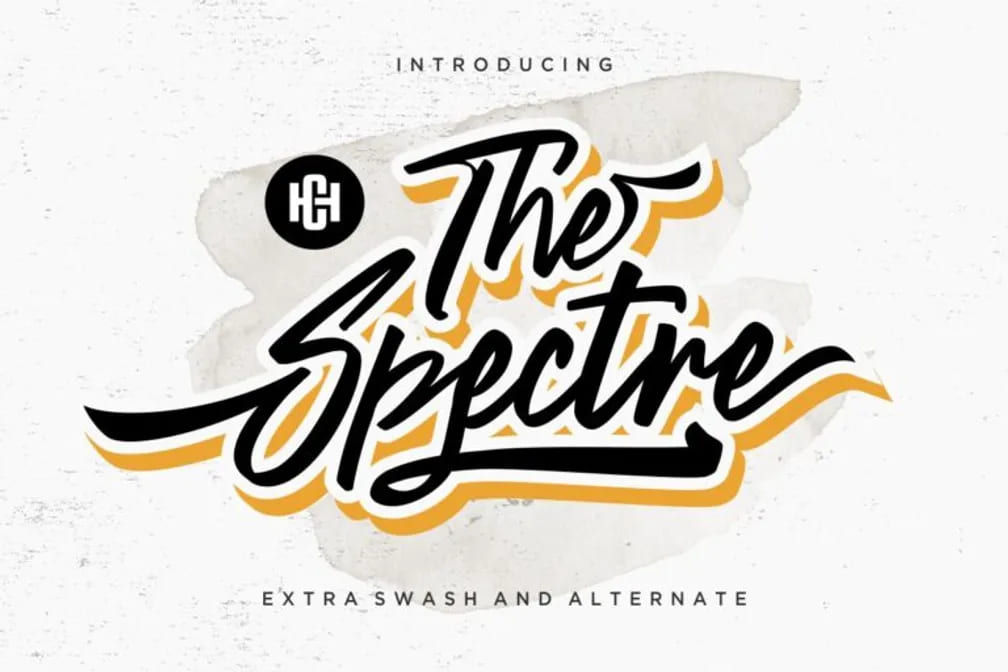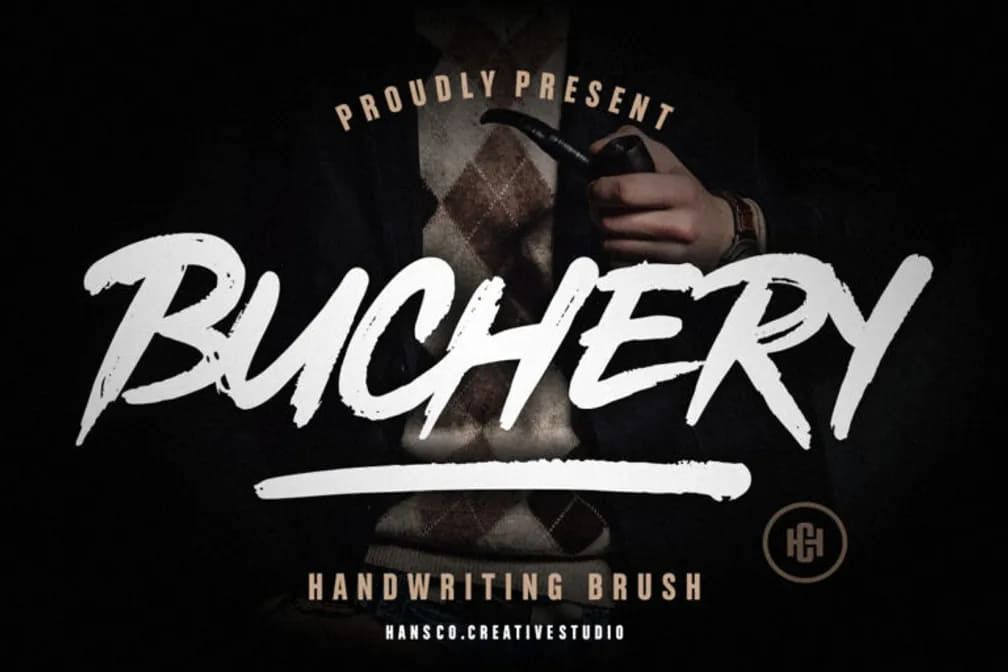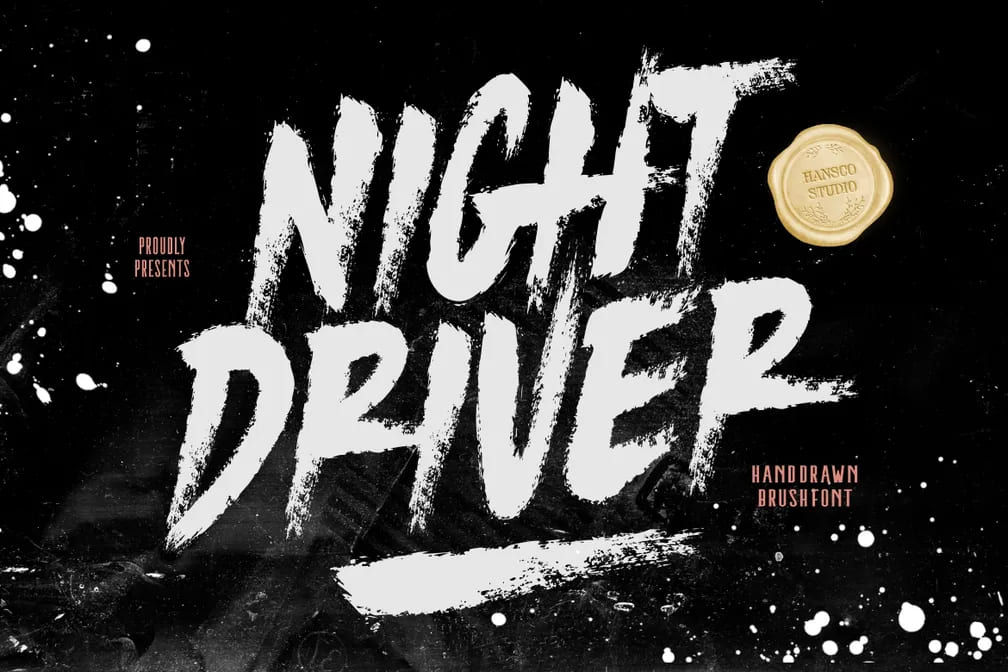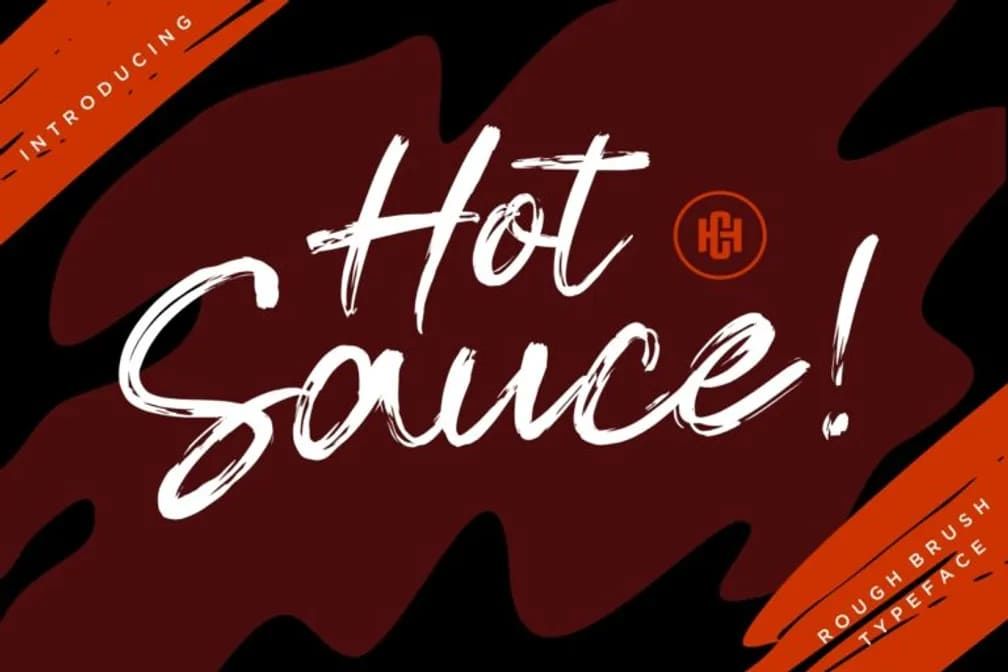
Brush Script Fonts: 32 Picks from Rough Strokes to Refined Style
In design and branding, legibility and aesthetics are essential, but they’re not always enough to stand out. To break through a crowded market, you need typefaces with real personality. Brush script fonts, with their expressive and handcrafted style, are a powerful way to add character and make your visuals more distinctive.
Not sure where to start? Explore the list below to find styles that match your creative direction.
Key Takeaways:
• Brush script fonts bring a more human, expressive feel that helps designs stand out in a crowded digital landscape.
• Their wide range of styles, from rough and energetic to smooth and elegant, makes them adaptable for many types of branding and creative projects.
• Choosing the right style can strongly influence how a brand is perceived and make the overall design memorable.
Why Use Brush Script Fonts in Design
You might wonder, what is brush script font and why use it in design? In an era shaped by AI-generated content, audiences are increasingly drawn to visuals that feel more human and authentic. Reports from Bigeye Agency show that 73% of consumers are less likely to trust AI-generated content, highlighting a growing preference for human-centered design.
Brush script fonts respond to this shift naturally. Their imperfect, hand-drawn strokes bring personality and a sense of originality that polished digital type often lacks. At the same time, they are highly versatile, ranging from rough, energetic styles suited for bold design to seamless, elegant scripts ideal for refined or feminine visuals.
32 Brush Script Fonts That Instantly Elevate Your Design
Here are the carefully selected brush script fonts designed to elevate your visuals with style and character.
1. The Spectre
Spectre delivers an urban street-style feel with sleek, curving strokes. Additionally, its thin, wavy lines add movement and make it a great pick for venturesome streetwear designs.
2. Hot Sauce
Hot Sauce is a script font brush with a dry, textured finish. Despite its unfinished appearance, the strokes flow naturally, creating an energetic feel. This font works well for designs that aim to convey high energy, such as workout brands or street food posters.
3. Holingston
If you are looking for a font that feels masculine, neat, and stylish, Holingston is a strong choice. It features steady handwriting with a gritty, faded effect, giving it a semiformal and mysterious appeal.
4. Love Sparks
Among many brush script fonts, Love Sparks stands out for kid-friendly designs. It features heavyweight lines with a natural flow, creating a cheerful feel while maintaining good legibility.
5. Gopetter
Gopetter features clean, glossy strokes that create an elegant and refined look. It is a great choice for brands that want to appear casual while still maintaining a professional tone.
6. Santoriu
If you are wondering what does brush script font look like in a Japanese-inspired style, Santoriu is worth exploring. Its kanji-like letterforms help create an authentic feel, especially for Japanese-themed branding.
7. Wild Wolf
Wild Wolf delivers an adventurous feel. Its pronounced strokes create a sense of dynamic movement.
8. Bastian Sidney
Bastian Sidney brings a masculine touch with its raw yet stylish strokes. It is well-suited for gentleman-focused designs, such as men’s fragrance or fashion branding.
9. Cyber Brush
Cyber Brush features thick, dry brush strokes that give it a strong, fearless appearance. This font works well for outdoor-themed branding, including hiking, camping, or adventure projects.
10. Crunchy
Crunchy is one of the brush script fonts that combines an uneven texture with a flowing structure. Enhanced with swashes and alternates, it embraces imperfection while maintaining a dynamic rhythm.
11. Blaster
Blaster showcases paintbrush-style strokes with lively swashes, resulting in a highly vivid look. It is a great option for designs that aim to highlight creativity and artistic flair.
12. Buchery
Buchery is a vigorous font that emphasizes thickness and a slightly gritty texture. Thus, it works well for brands that want to communicate strength, power, and intensity.
13. Night Driver
Night Driver features extremely thick strokes and a coarse texture, creating a dramatic, blood-splatter effect. It’s a strong choice for horror or Halloween-themed designs.